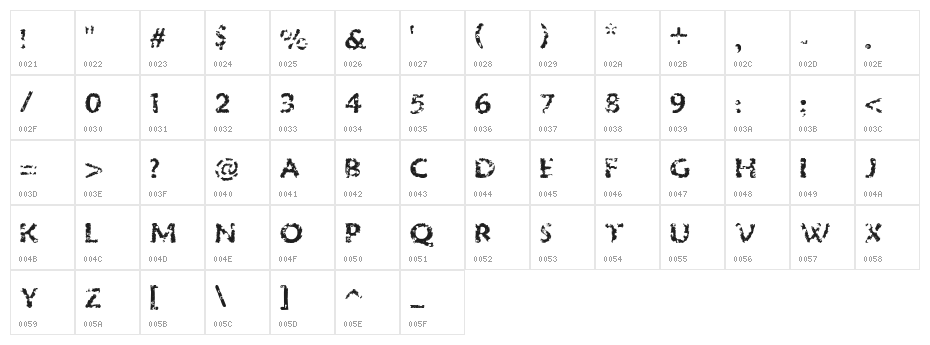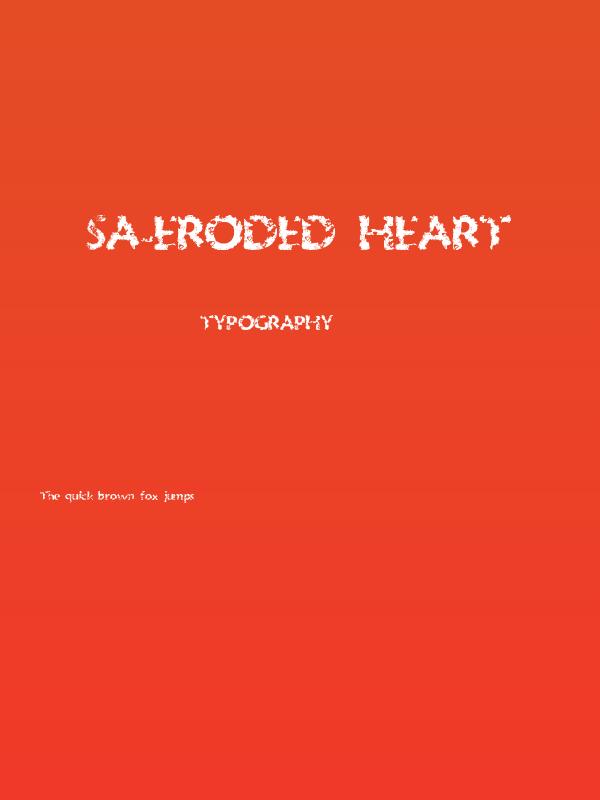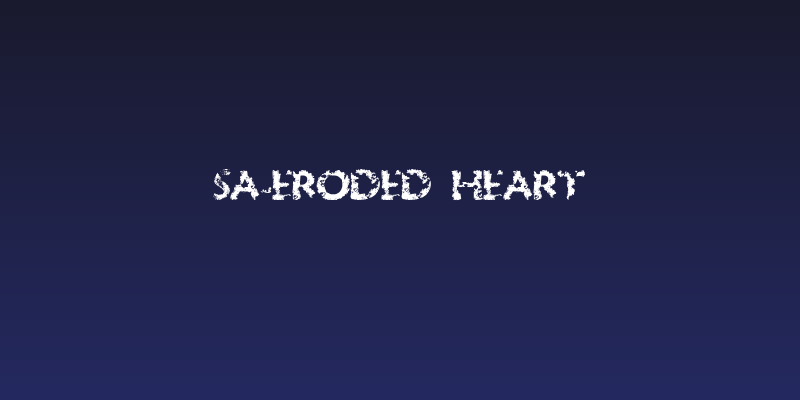
SA-Eroded Heart Font
SA-Eroded Heart Description
This font features a distressed and eroded appearance, giving it a rugged and weathered look. The characters are bold and display a unique texture that resembles erosion or decay, making it stand out with a gritty aesthetic. The uppercase and lowercase letters maintain a consistent style, with jagged edges and irregular forms that add to its distinctive charm. Numbers and special characters follow the same eroded pattern, ensuring uniformity across all glyphs. This font is ideal for projects that require a raw, edgy feel, such as posters, album covers, or themed event materials.
SA-ERODED-HEART UPPERCASE
SA-ERODED-HEART LOWERCASE
SA-ERODED-HEART OTHER CHARS
| Proposed Projects | Ideal for posters, album covers, themed events, and any project needing an edgy, raw aesthetic. |